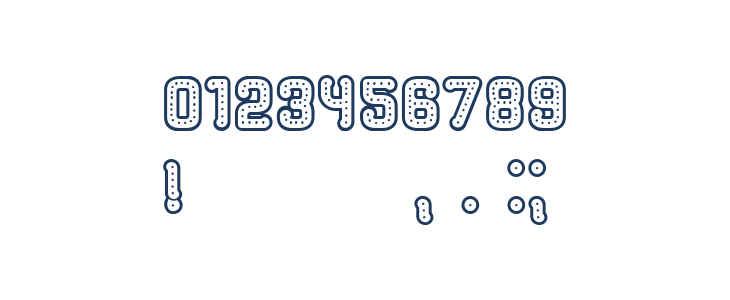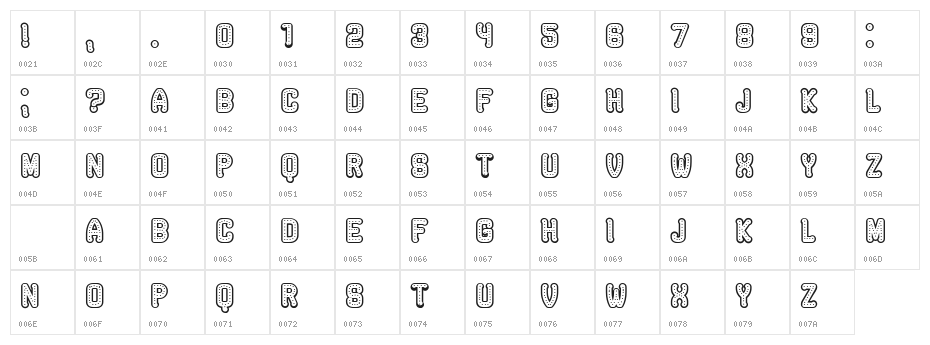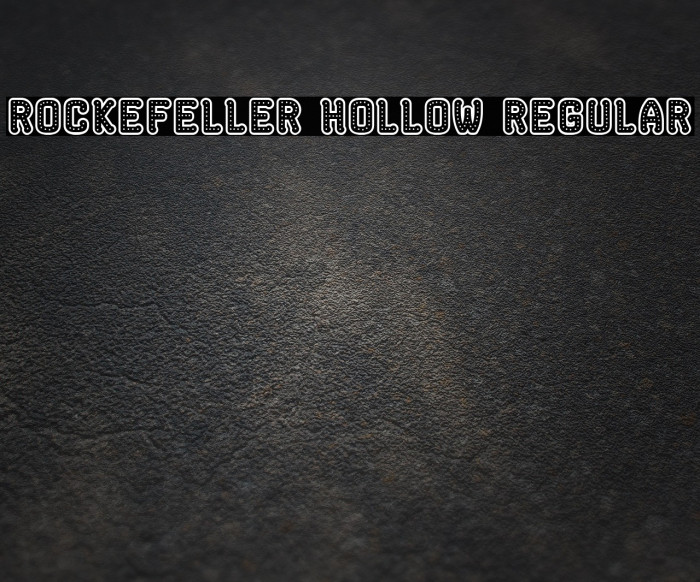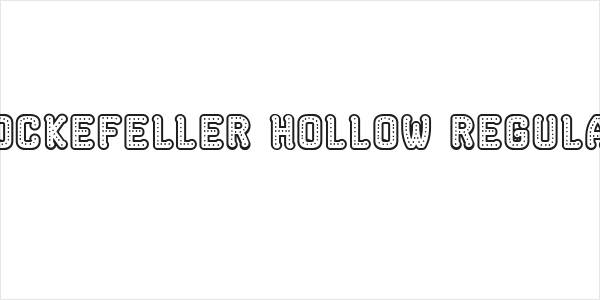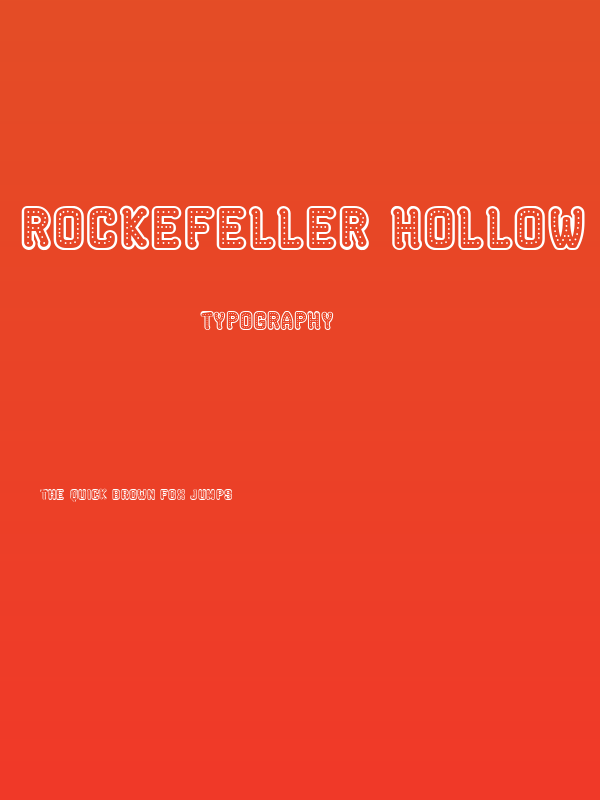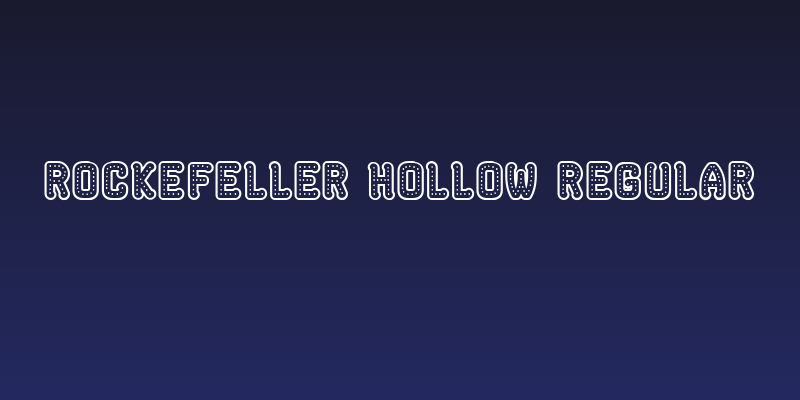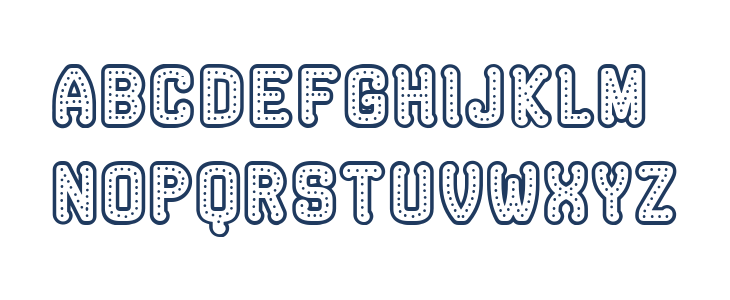
Rockefeller Hollow Regular Font
Rockefeller Hollow Regular Description
This font features a unique hollow design with a dotted pattern inside each character, creating a playful and eye-catching appearance. The letters are bold and rounded, with a consistent thickness throughout, giving it a modern and decorative look. The uppercase and lowercase letters maintain a uniform style, while the numbers and special characters complement the overall aesthetic. The font's distinct style makes it suitable for creative projects that require a bold statement.
| Proposed Projects | Ideal for posters, logos, children's book covers, and playful branding materials. |